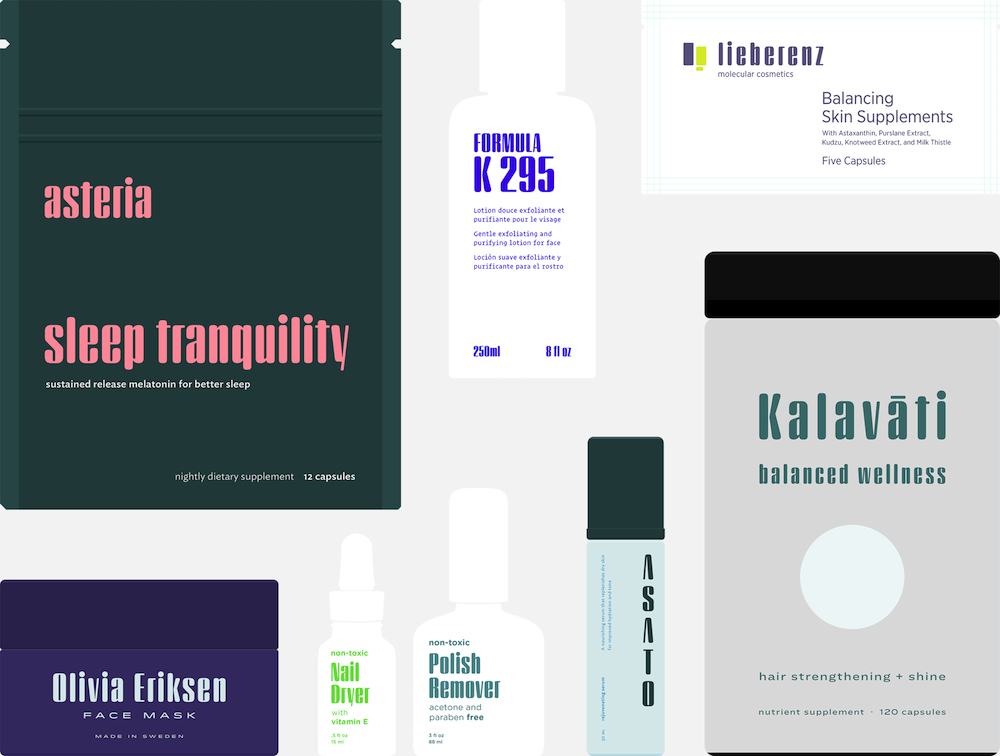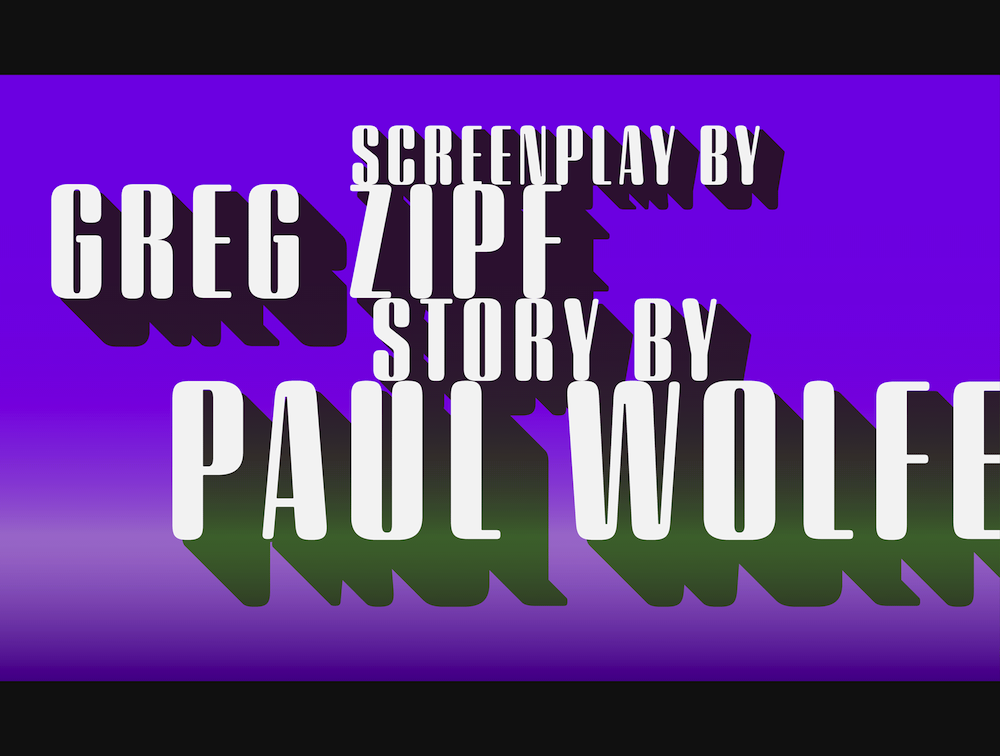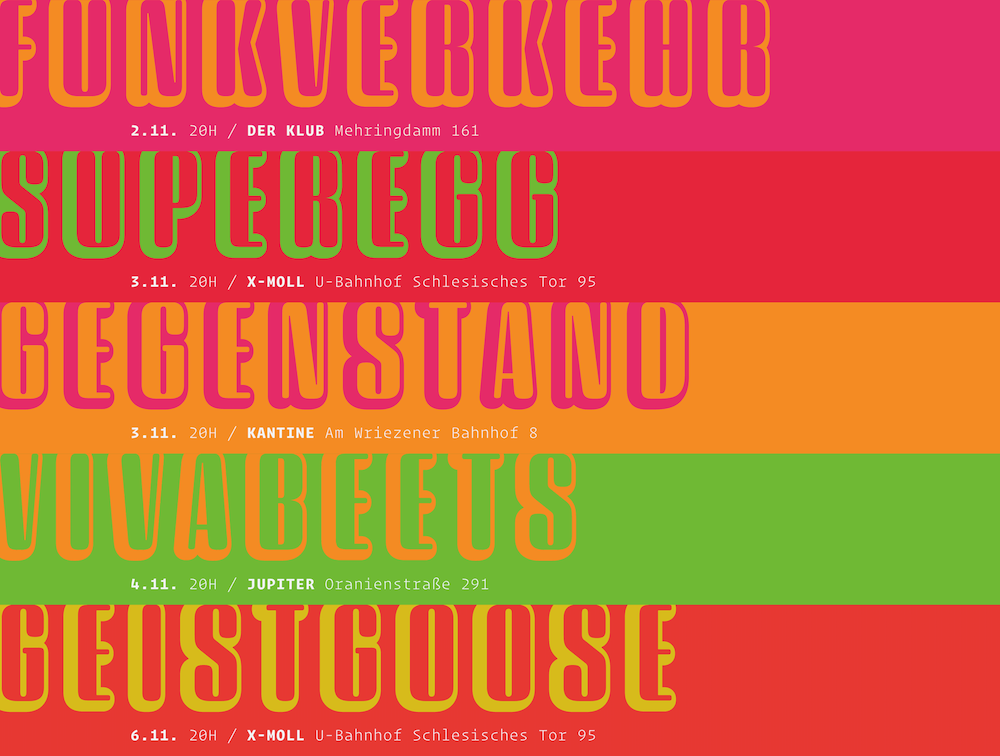
Name: Sagittarius
Designer: Jonathan Hoefler
Foundry: Hoefler&Co
Release Date: 2021
Back Story:
A few years ago, Jonathan Hoefler was working on Peristyle when he started noticing some unexpected stylistic quirks. “I kept getting this kind of vaguely sci-fi vibe from it, and I couldn’t figure out where it came from,” he says. There was something about the typeface’s art-deco influence and high contrast shapes. When he squinted, Peristyle’s hard edges became rounded, which made him recall the science fiction books he read in high school.
In his free time after releasing Peristyle, Hoefler kept toying with the typeface’s details, rounding off a corner here, eliminating a crossbar there. “I still wasn’t quite sure what kind of designer would choose this, and for what kind of project,” Hoefler says. “And then the ideal thing came along.”
Hoefler’s lexicographer friend Jesse Sheidlower was starting a website called the Historical Dictionary of Science Fiction, a database of words and phrases from the sci-fi canon. Hoefler figured his new typeface could be a perfect fit. “I told him, ‘I’ve got this thing that I’m working on, which is a little kooky, but it’s not dumb,’” he says. Hoefler’s team rarely works on custom type, and most of their fonts have an intentional versatility to them. “I don’t do a lot of typefaces that are so manifestly fun,” he says. “I really try hard to work on things that don’t have this one set of baked-in associations. So I began thinking, is there a way to do a kind of science fiction version of this that can be good for other things as well?”
What are its distinguishing characteristics?
Sagittarius is a descendant of Peristyle, but it borrows liberally from classic sci-fi DNA. Hoefler wanted the typeface to evoke almost cliched technological styles, like the numbers on bank checks or magnetic ink typography from the 1950s. “We looked to styles that have been a placeholder for futurism for the last 50 years,” he says. “But it [Sagittarius] speaks that language in a distant way.”
The typefaces feature stylized details like stemmed-in hairlines, rounded gestures, and detached blobs. Hoefler widened the bottom of the “M” and capital “W” to get the long plateaus that give both their sine wave shape. Above the lowercase “G” Hoefler added a little island that draws inspiration from the markings on checks.
The designers were careful to give people the option to amp up the sci-fi look or tone it down with alternative characters. The “K”, for example, comes in both an attached and detached version. The “A”, too, comes in two styles—one with a crossbar and another without to evoke a more classic sci-fi look à la Richard Danny’s NASA logo. “It begins with a very neutral base and you have the option to turn things on and push the font in different directions,” he says.
Why is it called Sagittarius?
While designing, Hoefler was getting “70s vibes” from the typeface that felt distinct from its sci-fi leanings. It also had a broader galactic quality to it, which made it feel both scientific and mystical. “I thought that somewhere between space and astrology there is a name that could be evocative,” he says. The hardest part about naming a typeface, Hoefler adds, is that many of the good names are already taken. To get past that initial hurdle, he looks to the typeface itself to see what words could best represent the letters’ most compelling characteristics. In the case of Sagittarius, the lowercase “G” was one of his favorite letters. “I liked the idea that Sagittarius feels like it’s an astrological thing and an astronomical thing,” he says. “It’s also could be the name of a starship or something—the USS Sagittarius sounds plausible.”
What should I use it for?
Anything sci-fi related, obviously. But Hoefler made sure that the typeface felt appropriate for other use cases, too. Toggle off the alt characters, and Sagittarius feels at home for projects that span the beauty and health worlds, as well as music and entertainment. It’s a fun display typeface, so use your imagination.
What other typefaces do you like to pair it with?
Hoefler recommends pairing Sagittarius, or any super evocative display type, with something more sober. He says his foundry’s Ringside and Gotham typefaces are good options. “The combination I liked a lot was Sagittarius and Operator,” he adds. “Operator is a monospaced typeface, designed for people doing things in programming and terminals, and it’s got a really marvelous attack.”